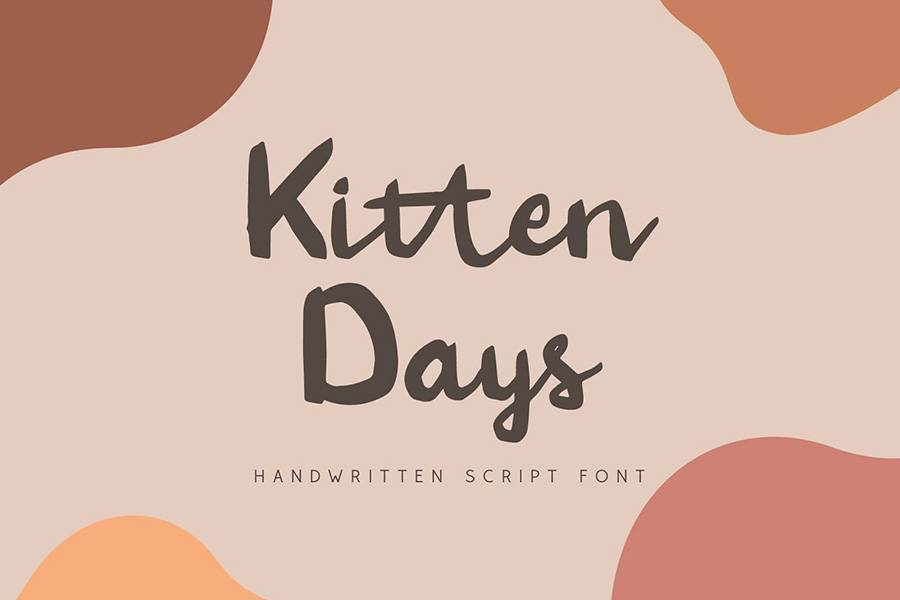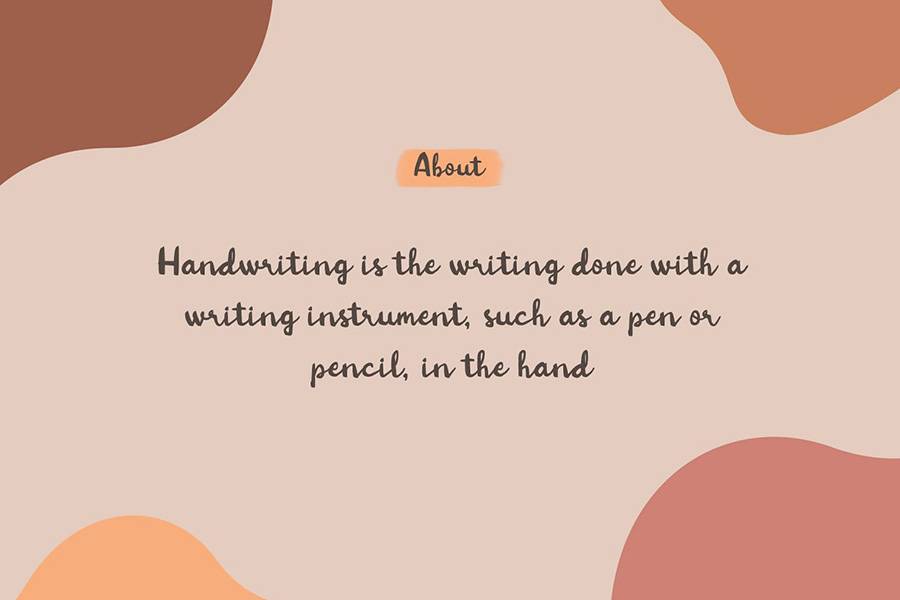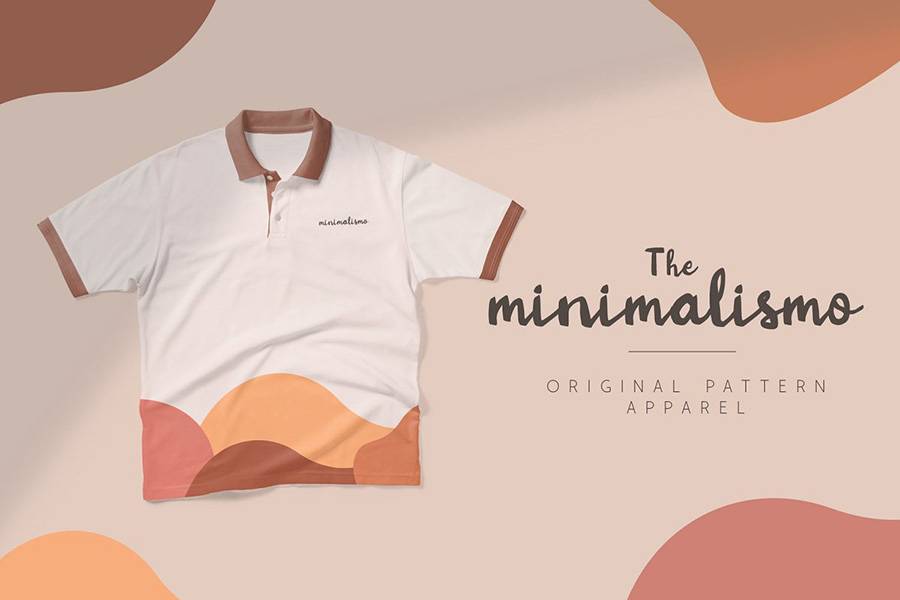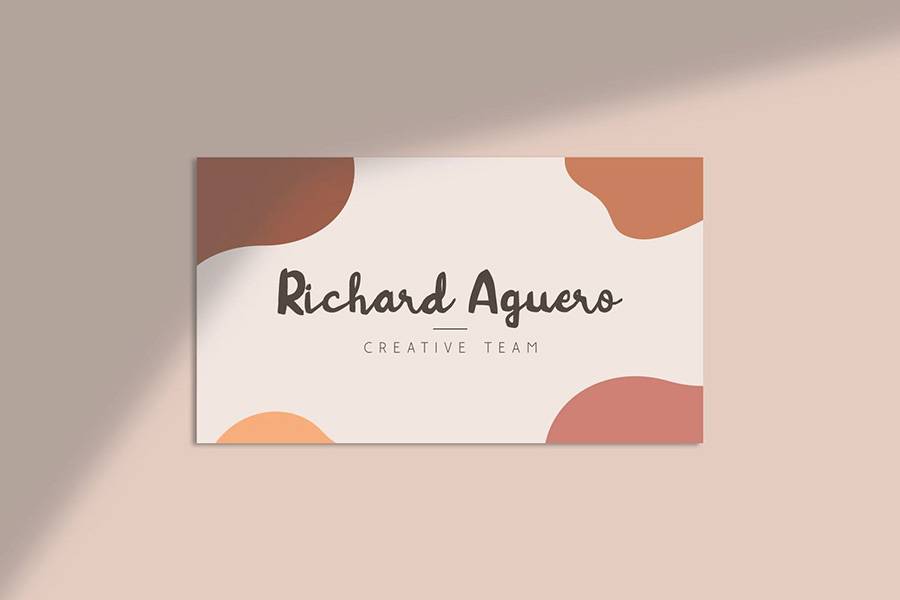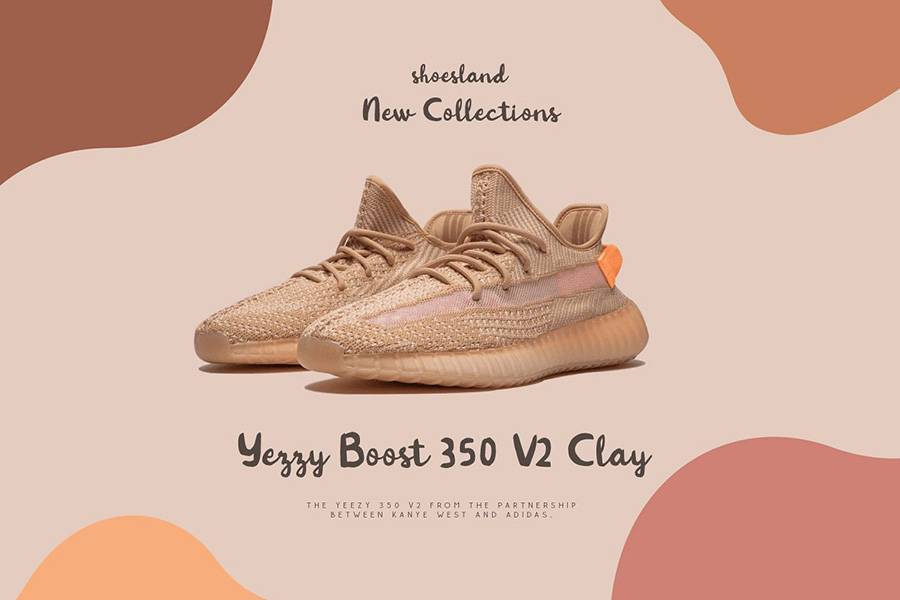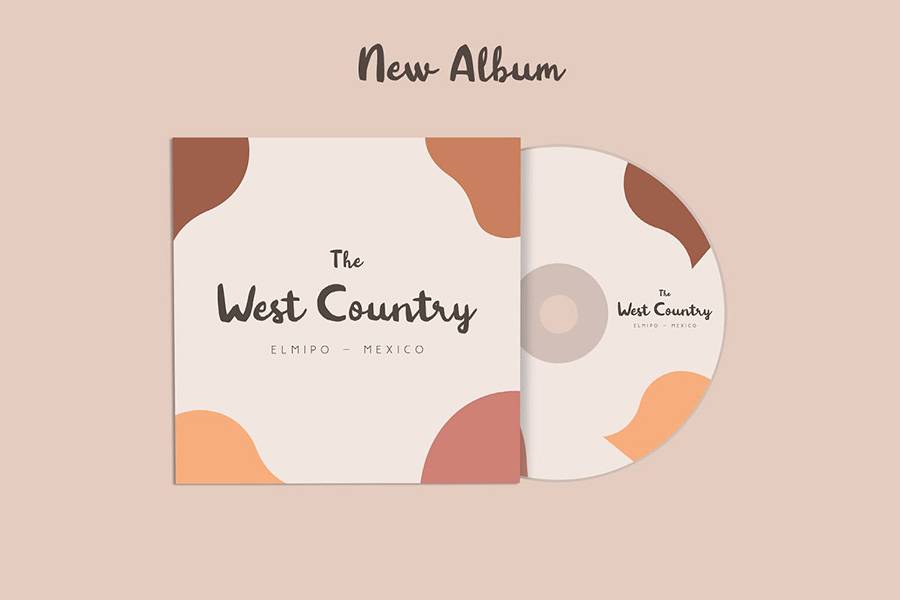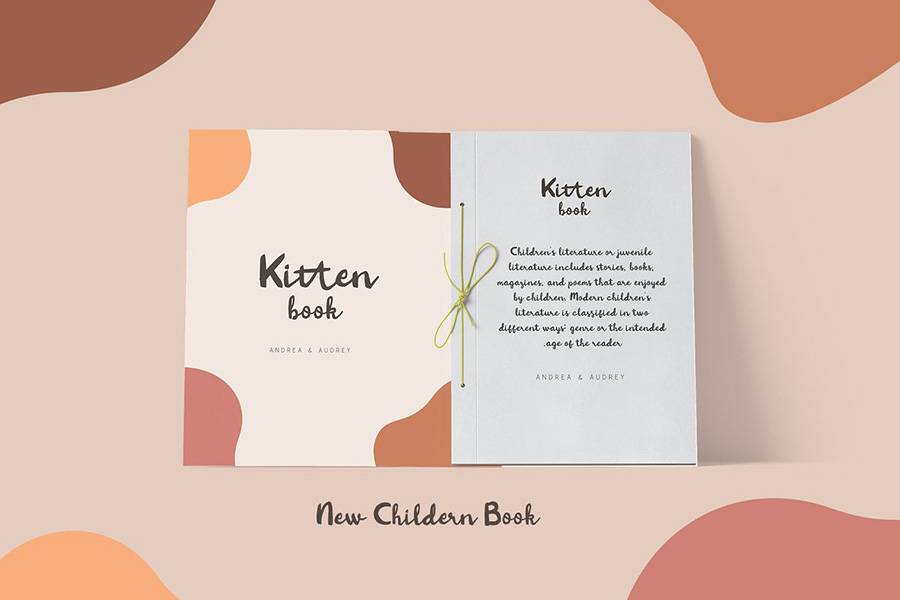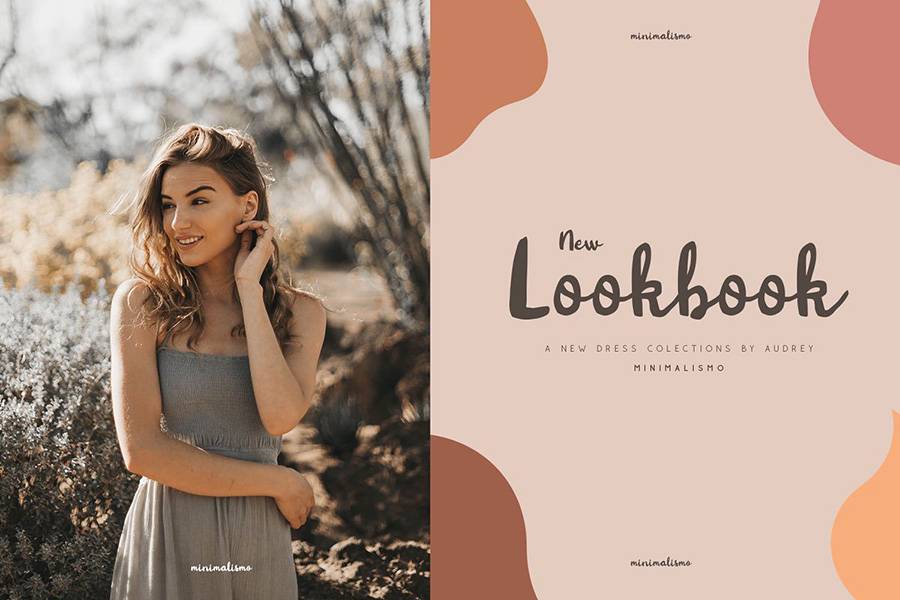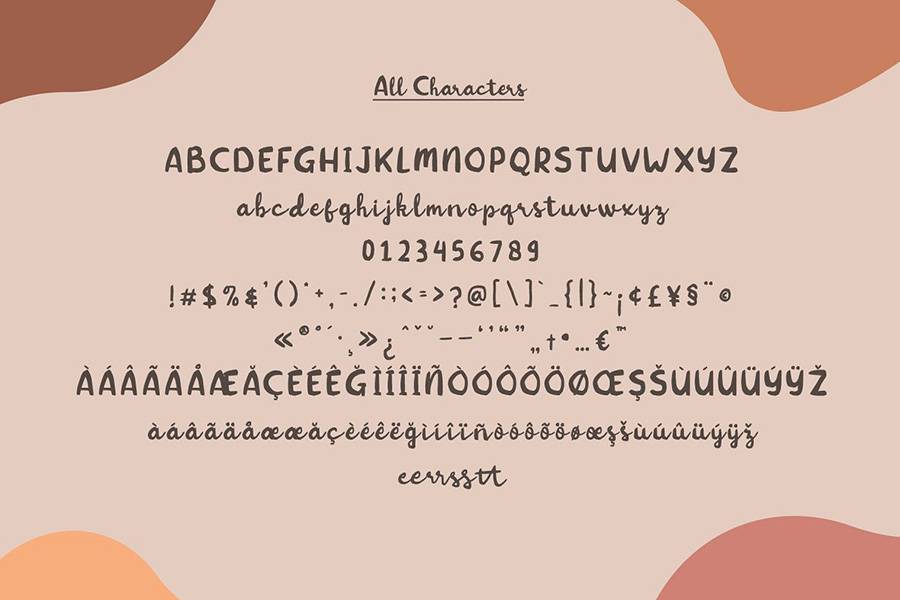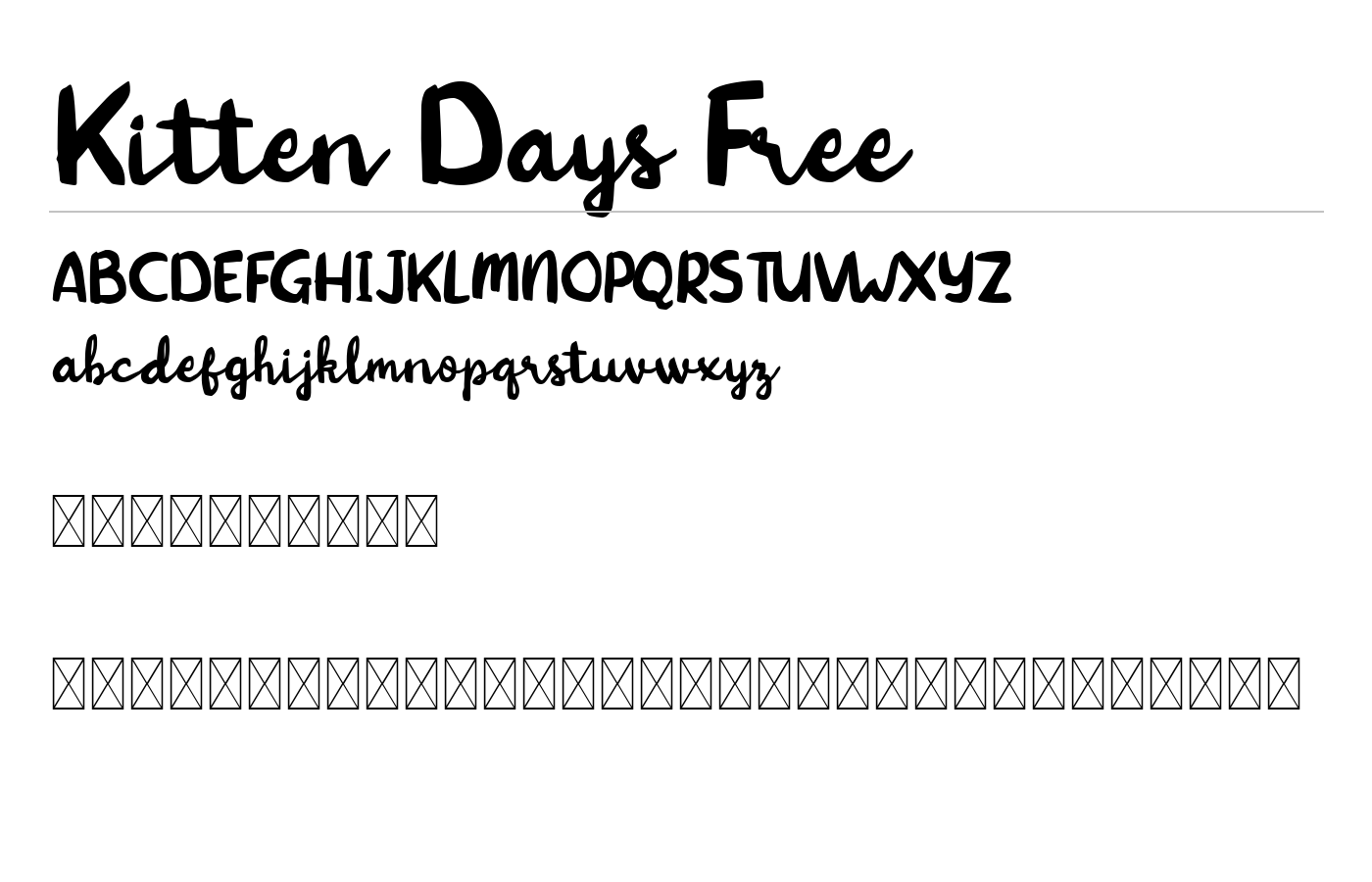
Kitten Days Handwriting Font is a playful and casual script with a bold, rounded style that mimics natural handwriting. Its lively, friendly character makes it ideal for informal designs like children’s books, greeting cards, or creative branding that needs a warm, approachable touch. This font works best where a personal and cheerful feel is desired, thanks to its easy-to-read yet expressive letterforms.
Kitten Days Handwriting Font
About Kitten Days Handwriting Font